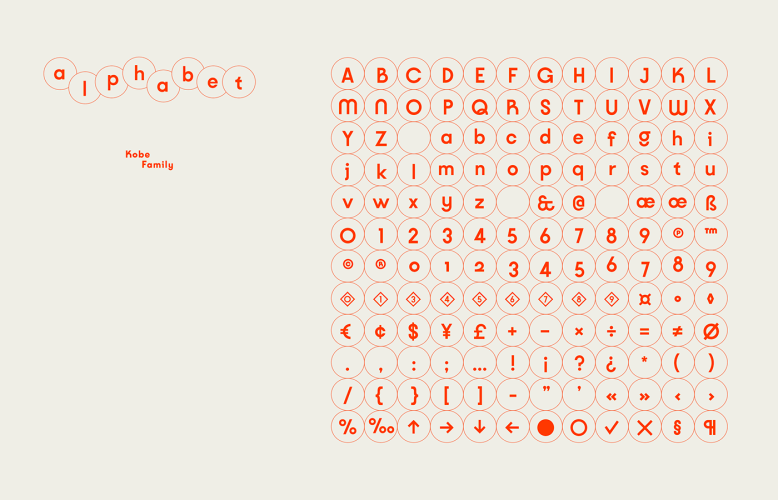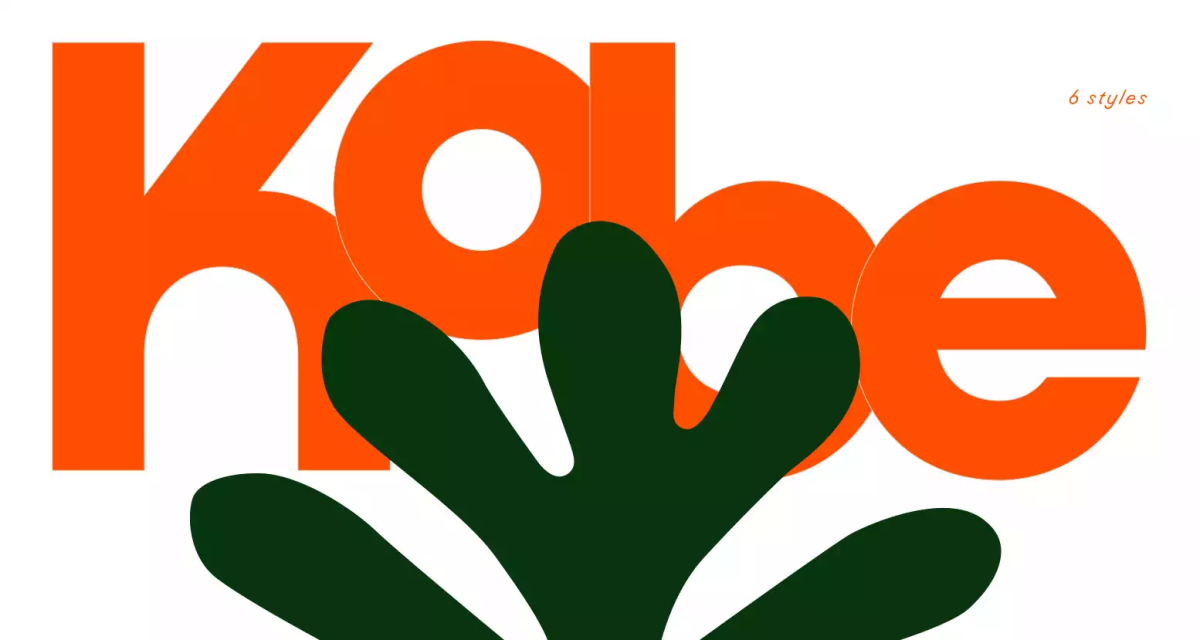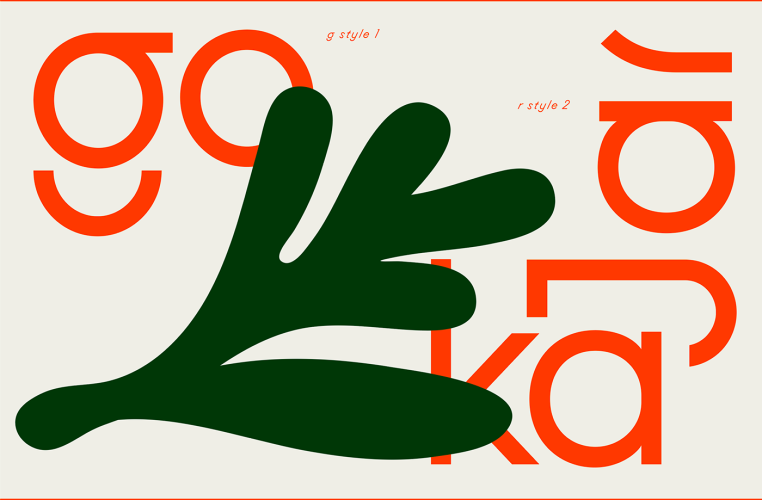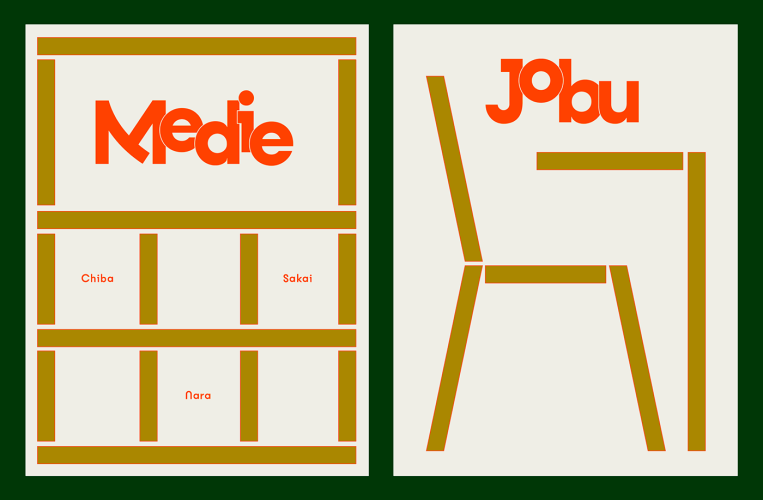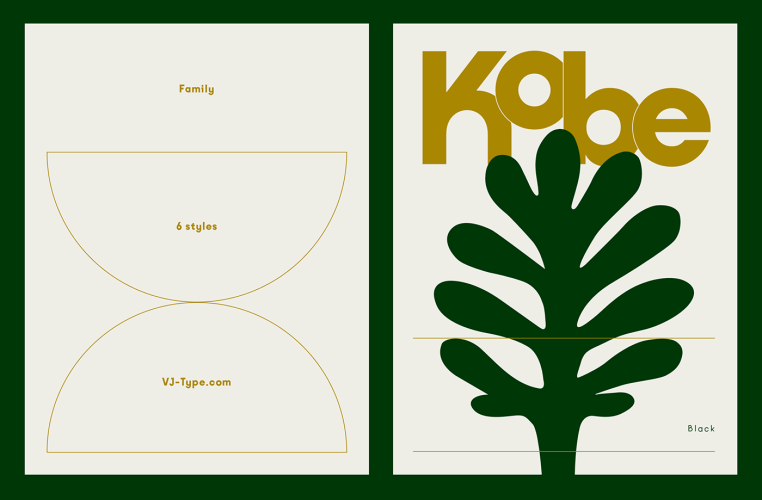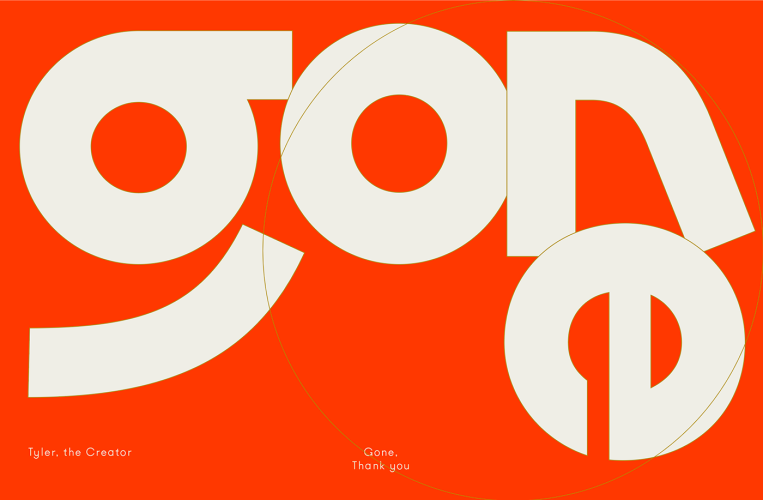
Kobe Font
Kobe is our new classic. First released as a one-weight font in 2018, it quickly became a house favorite : its straight-forward, well-proportioned modular structure made it as usable in text as its playful terminals and many alternates made it fit for display versions. Kobe is versatile yet timeless, which is why it defines the studio so well and is often present in our communication. The numerous ligatures and stylistic sets take inspiration from Japanese writing shapes. The regular version has just undergone a subtle makeover and now exists in 5 additional weights, perfect for text. The daring slant of its oblique makes the letters stand out in large paragraphs and is a clear testimony of our studio’s quirky approach at designing fonts.
Where Kobe Font works best
Kobe Font stays legible at small sizes, which makes it a strong choice for navigation, buttons and dashboards in web design and app interfaces.
Clean sans serifs like Kobe Font are the default language of SaaS, fintech and product branding.
What is Kobe Font good for?